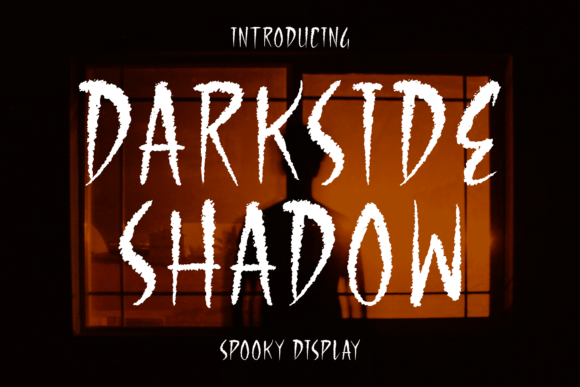
Unlock the Mystique with Darkside Shadow Font
Have you ever found yourself lost in the darkness of a creative project, searching for the perfect font to bring your vision to life? That’s exactly where I was a few nights ago, scrolling through my font library, when I stumbled upon the enigmatic Darkside Shadow Font. Its eerie yet elegant handwriting style immediately captured my attention, and I knew I had to learn more.
Darkside Shadow Font is a versatile, spooky handwritten font designed to add an air of mystery to your projects. Suitable for a wide range of applications, from logos and branding projects to homeware designs and product packaging, this font is the perfect addition to any designer’s toolkit. Its versatility and unique style make it a valuable asset for designers looking to add a touch of darkness and sophistication to their work.
Darkside Shadow Font Key Features
- Font Family: Darkside Shadow, a unique and mysterious font family designed to evoke a sense of darkness and shadow.
- Unique Characteristics: Features a distressed, hand-drawn aesthetic with subtle texture and shading effects, adding a touch of mystique to any design.
Review of “Darkside Shadow Font”
Overall, I think “Darkside Shadow Font” has some great qualities, but it also has some limitations that might hold it back from being a top choice.
- Unique aesthetic: The font has a distinctive, edgy look that’s perfect for projects that need a bit of attitude.
- Great for readability: Despite its bold, dramatic look, the font is surprisingly readable, even at smaller sizes.
- Cool for titles and headings: The font’s bold, shadowed effect makes it a great choice for titles, headings, and other prominent text elements.
- Not suitable for body text: While the font is readable, it’s still quite bold and dramatic, which can make it difficult to use for large blocks of text.
- Limited character set: The font seems to be missing some characters, including some punctuation marks and special symbols.
- May not work well in certain contexts: The font’s bold, shadowed effect can be overpowering, and might not work well in certain design contexts, such as for small text or in complex layouts.
I think “Darkside Shadow Font” is a solid choice for projects that need a bold, dramatic look, but it’s not a one-size-fits-all solution. With some careful planning and consideration of its limitations, it can be a great addition to your design toolkit.
The Darkside Shadow Font is commonly used for:
- Creating eye-catching titles and headings
- Adding depth and dimension to text
- Designing futuristic and sci-fi themed graphics
- Creating a sense of mystery and intrigue